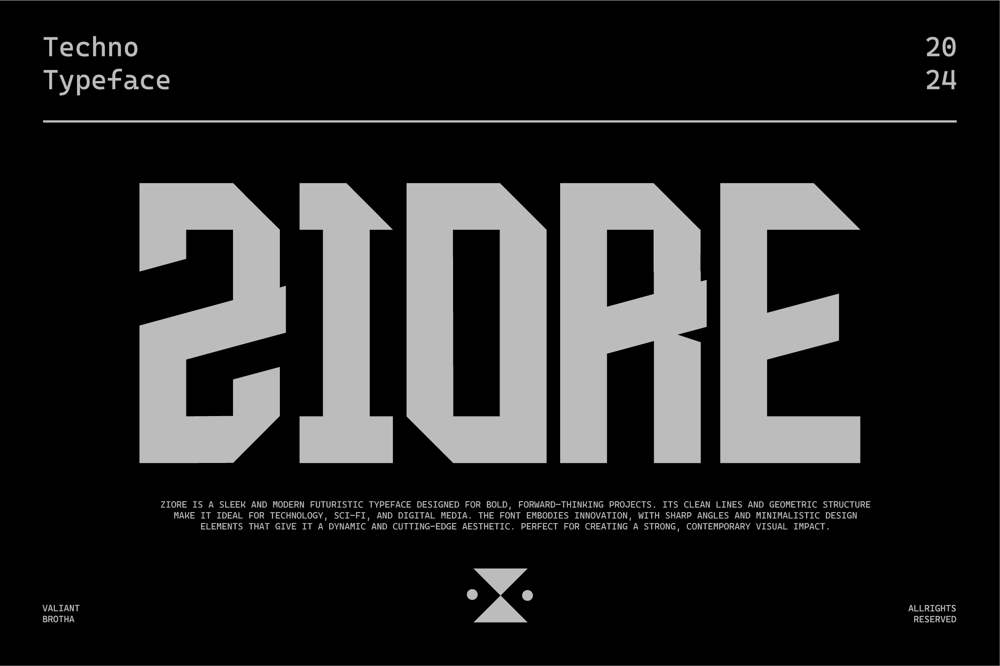
Ziore Font Family was designed by Agus Prima and published by Valiantbrotha. Ziore contains 1 styles and family package options. Ziore is a sleek and modern futuristic typeface designed for bold, forward-thinking projects. Its clean lines and geometric structure make it ideal for technology, sci-fi, and digital media. The font embodies innovation, with sharp angles and minimalistic design elements that give it a dynamic and cutting-edge aesthetic. Perfect for creating a strong, contemporary visual impact.